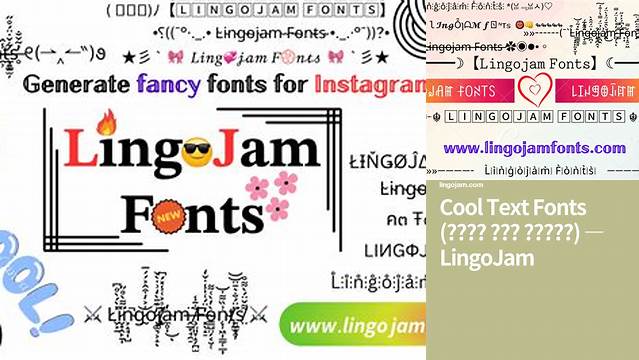
Cool Text Fonts: Copy & Paste Guide With LingoJam
Hey guys! Are you looking to spice up your social media, add some flair to your documents, or just generally make your text look cooler? You've come to the right place! In this article, we're diving deep into the world of cool text fonts and how you can easily copy and paste them using tools like LingoJam. We'll explore what these fonts are, where you can use them, and some tips and tricks to make your text stand out. So, let's get started and transform your plain text into something extraordinary!
What are Cool Text Fonts?
When we talk about cool text fonts, we're not just referring to the standard fonts you see in word processors like Times New Roman or Arial. Instead, we're talking about a variety of stylized text options that include things like bubble letters, cursive fonts, bold and italic variations, and even symbols and special characters. These fonts aren't fonts in the traditional sense (like those installed on your computer). Instead, they are created using Unicode characters. Unicode is a universal character encoding standard that assigns a unique code to virtually every character in every language, allowing for consistent representation and manipulation of text across different platforms and devices. This means you can copy and paste these stylized texts across various platforms without worrying about compatibility issues.
These unique text styles are generated by tools that map regular alphabet characters to corresponding Unicode symbols or combinations of symbols. For example, a tool might convert the letter 'A' into a stylized version like 'â¶' or 'đ'. This process allows you to create text that appears in different styles, such as bold, italic, cursive, or even with unique symbols surrounding the letters. The beauty of using Unicode is its widespread support. Because almost every platform and application supports Unicode, you can use these fonts on social media platforms like Instagram, Twitter, and Facebook, in messaging apps like WhatsApp and Telegram, and even in documents and emails. The versatility of Unicode ensures that your creative text will be displayed correctly, no matter where you paste it.
The appeal of cool text fonts lies in their ability to add personality and emphasis to your messages. Imagine posting a social media update in bold, italic text or adding a touch of whimsy with bubble letters. These fonts can help you grab attention, convey emotions, and express your individuality in the digital world. Whether you're crafting a catchy headline, designing an eye-catching invitation, or simply adding some fun to your everyday chats, cool text fonts can make a significant impact. By understanding how these fonts work and where they can be used, you can unlock a whole new level of creativity in your text-based communications.
How to Copy and Paste Cool Text Fonts with LingoJam
One of the easiest ways to generate and use cool text fonts is through online tools like LingoJam. LingoJam is a fantastic website that allows you to instantly convert your regular text into a variety of stylish fonts. Itâs super user-friendly, making it accessible for everyone, regardless of their technical skills. The process is straightforward: you simply type your text into the input box on the left, and LingoJam automatically generates various font styles in the output box on the right. From there, copying and pasting the stylized text is a breeze. Let's walk through the steps to get you started:
- Head over to LingoJam: First, open your web browser and go to the LingoJam website. Youâll immediately see a simple interface with two text boxes. This clean and intuitive design is one of the reasons LingoJam is so popular. There are no complicated menus or confusing options, just a straightforward way to transform your text. The site loads quickly and works seamlessly on both desktop and mobile devices, ensuring you can create cool text fonts wherever you are.
- Type your text: In the left-hand box, type the text you want to convert. This can be anything from a short message or caption to a longer paragraph. LingoJam processes your text in real-time, so as you type, youâll see the converted fonts appearing in the right-hand box. This immediate feedback is incredibly helpful, allowing you to experiment with different styles and see the results instantly. Whether youâre crafting a catchy Instagram caption, designing an eye-catching tweet, or writing a fun message for a friend, LingoJam makes the process quick and easy.
- Browse the font options: The right-hand box will display your text in a variety of different fonts. Scroll through the options to find the style that best suits your needs. LingoJam offers a wide range of fonts, from elegant cursive and bold, attention-grabbing styles to playful bubble letters and unique symbol-based fonts. Each style has its own distinct look and feel, so take your time to explore the different options. You might even discover some new favorites that you hadnât considered before. The variety of fonts available on LingoJam ensures that youâll always find something that matches your message and personality.
- Copy your favorite font: Once youâve found the font you love, simply click on the text in the right-hand box to select it, and then copy it (you can use keyboard shortcuts like Ctrl+C on Windows or Cmd+C on Mac, or right-click and select âCopyâ). LingoJam makes copying the text incredibly easy, with a simple click selecting the entire converted text. This seamless copying process is one of the things that users appreciate most about LingoJam, as it saves time and effort. The selected text is ready to be pasted wherever you need it, whether itâs a social media post, a messaging app, an email, or a document.
- Paste and enjoy: Now, paste the copied text into your desired application (like Instagram, Facebook, Twitter, WhatsApp, etc.). The font should appear exactly as it did on LingoJam. The beauty of using Unicode fonts is that they are widely supported across different platforms, so you can be confident that your cool text will display correctly for your audience. Whether youâre sharing a post on social media, sending a message to a friend, or creating a professional document, your stylized text will help you stand out and make a lasting impression. Enjoy the reactions and engagement your new fonts generate!
So, there you have it, guys! Using cool text fonts is a fun and easy way to add some personality and flair to your online communications. With tools like LingoJam, itâs simpler than ever to transform your regular text into something special. Whether you're looking to spice up your social media posts, add a touch of creativity to your messages, or make your documents stand out, cool text fonts are a fantastic option. Just remember to use them strategically, prioritize readability, and consider your audience to get the best results. Now go ahead and experiment with different fonts to find your favorites and start making your text truly shine! Have fun creating awesome content, and don't forget to share your creations with the world. Happy font-ing!